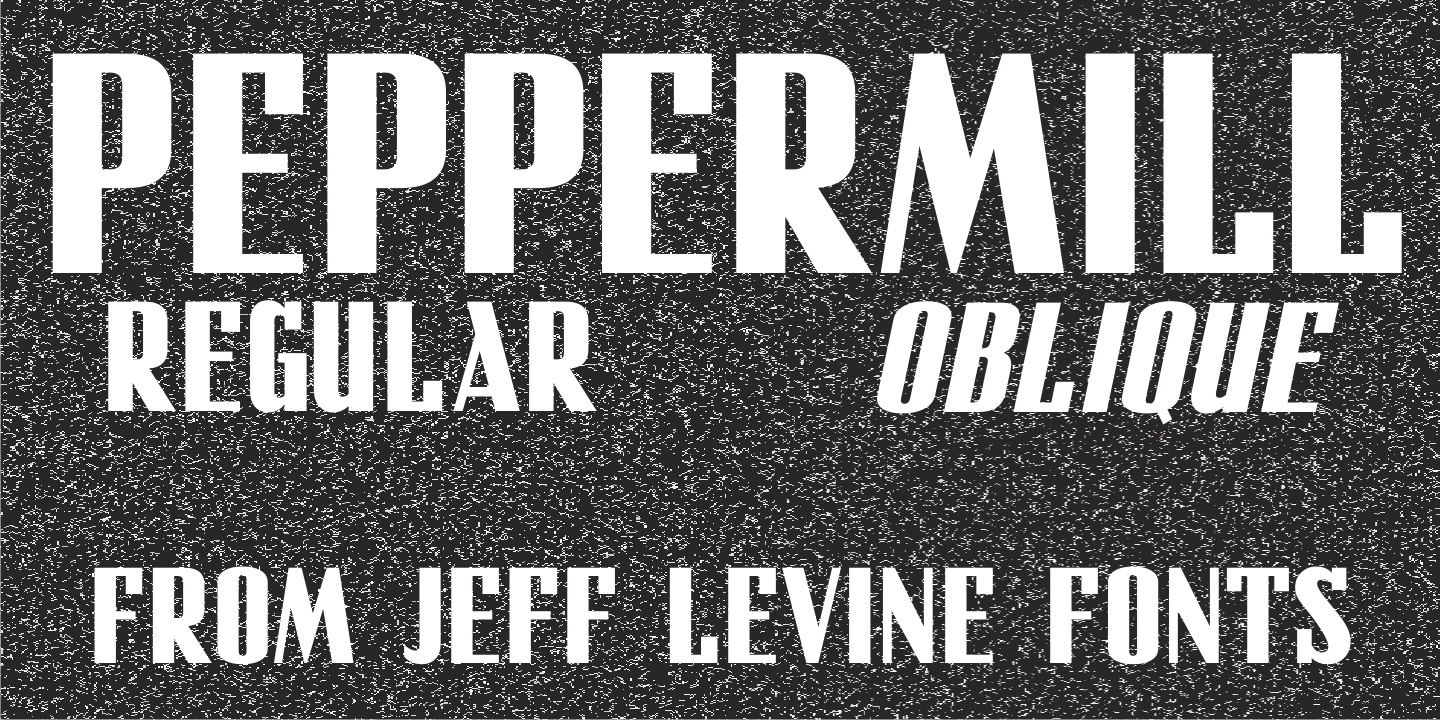
Peppermill
A bold sans serif with occasional rule-breaking vertical serifs on some characters was found within page examples from the book '100 Alphabets Publicitaires' ('100 Advertising Alphabets').
Although a few of those vertical serifs extended above the cap height in the hand lettering, they were made more uniform to keep a consistency in the digital version known as Peppermill JNL.
Available in both regular and oblique versions.